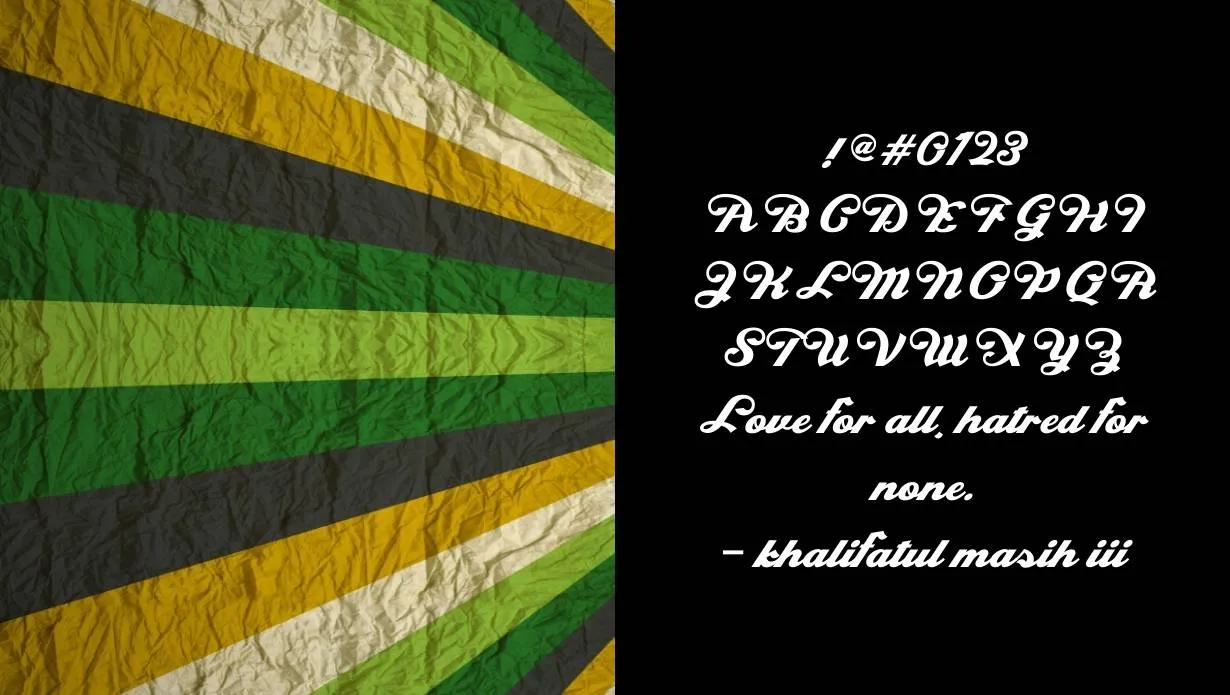
In this post, we introduce a new stylish and modern typeface that is famous by the name Miller Lite Font. It was designed by a very elegant designer named Michael Hagmann. In the year 2005, this typeface was released to the general public. This typeface has gained immense popularity in a very short period of time. It belongs to the script typeface.
This versatile font family is available in four different styles namely Regular, Italic, Bold and Bold Italic. All of these styles have their own unique charm and can be used for various design purposes. It is best for use in Adobe. You need to use its similar hunting font that has the same features as this typeface.